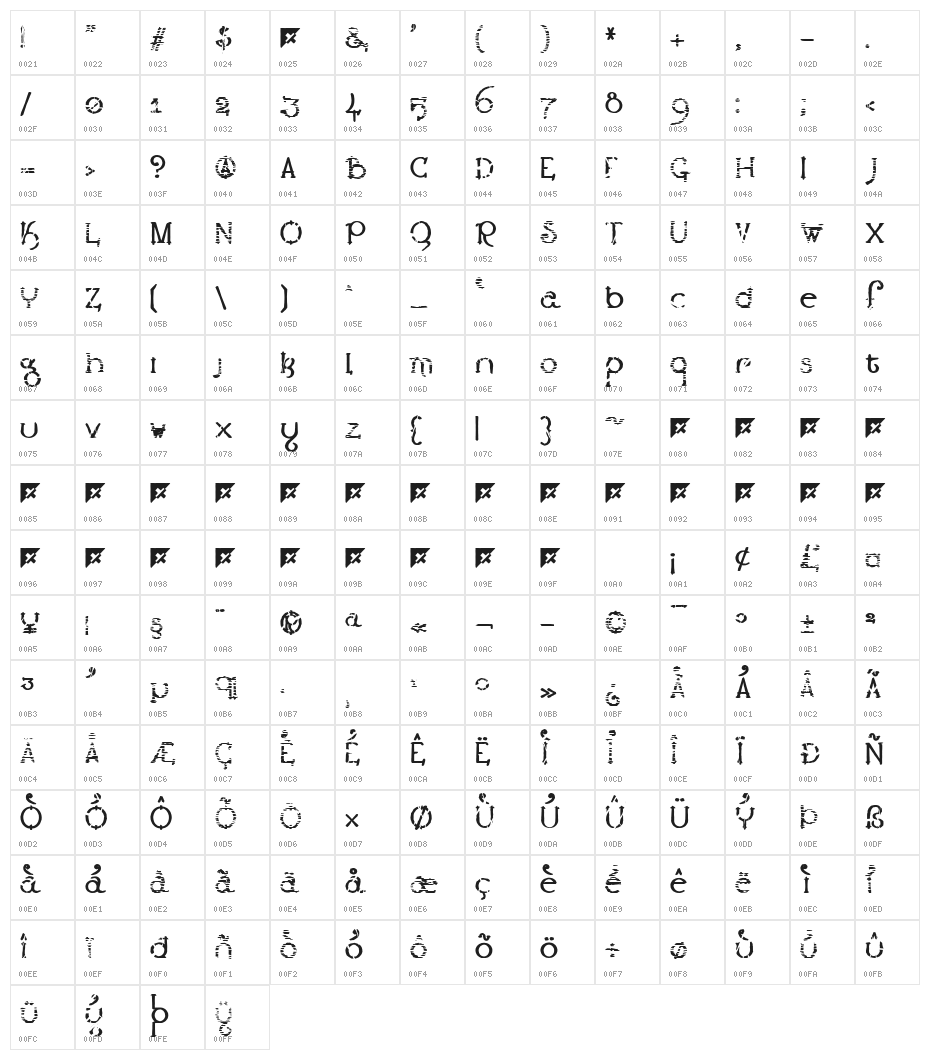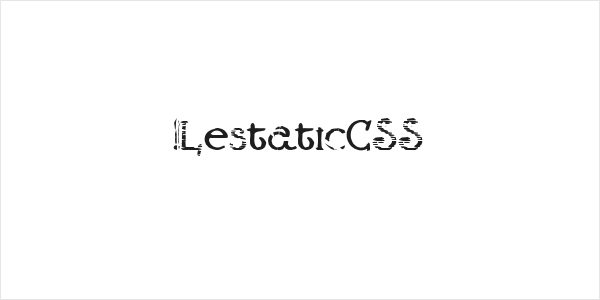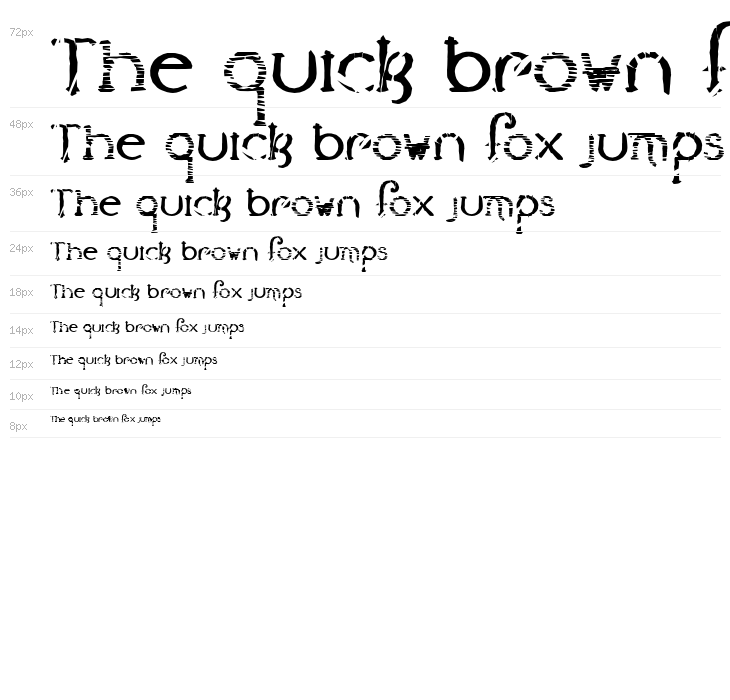
!LestaticCSS Font
!LestaticCSS Description
This font features a unique, distressed appearance with a horizontal line pattern running through each character, creating a sense of movement and texture. The characters are bold and have a slightly irregular form, giving them a hand-crafted, artistic feel. The uppercase and lowercase letters maintain a consistent style, with sharp edges and distinct curves. Numbers and special characters follow the same design principles, ensuring a cohesive look across all glyphs. This font is ideal for projects that aim to convey a sense of creativity and individuality.
Proposed ProjectsIdeal for artistic projects, posters, album covers, and branding that requires a unique and creative touch.